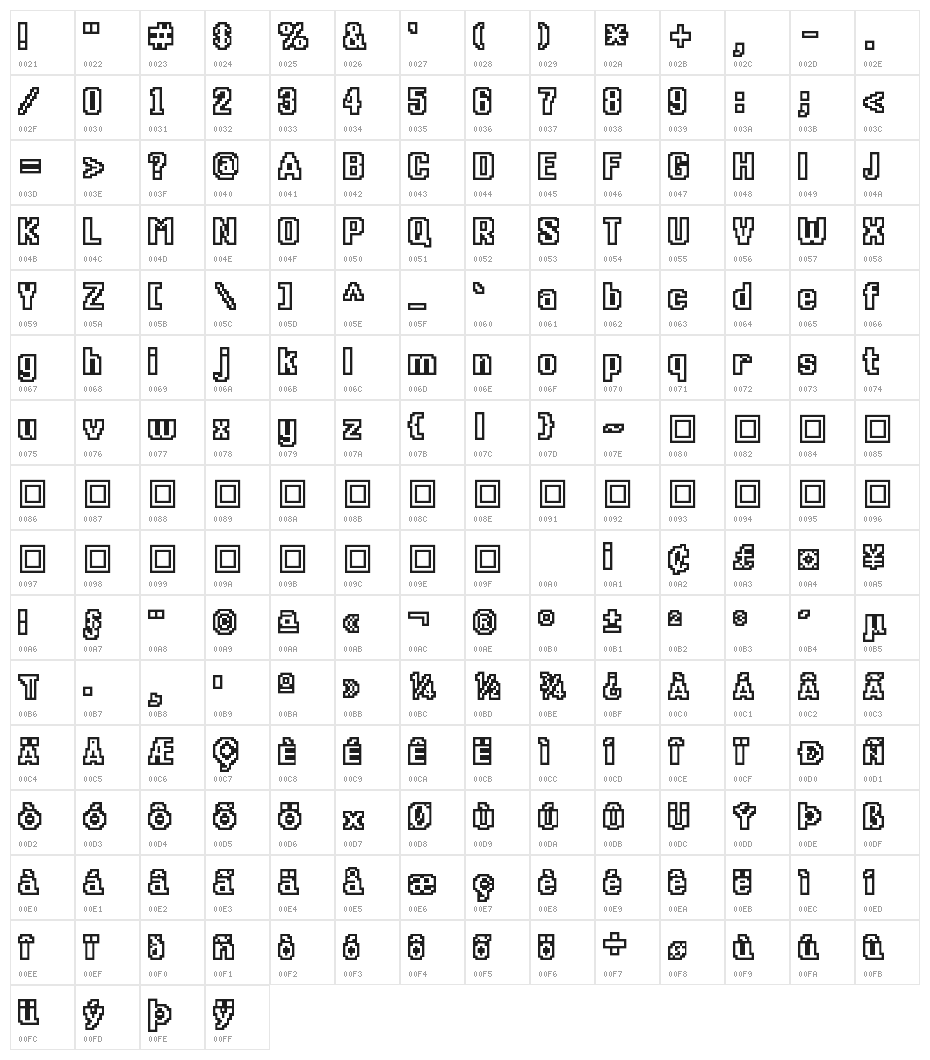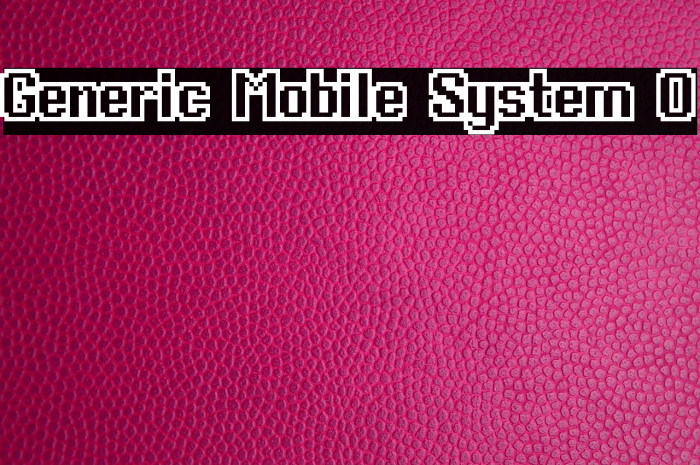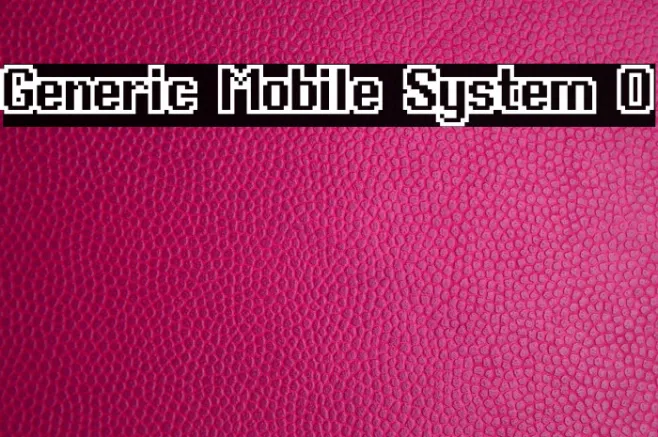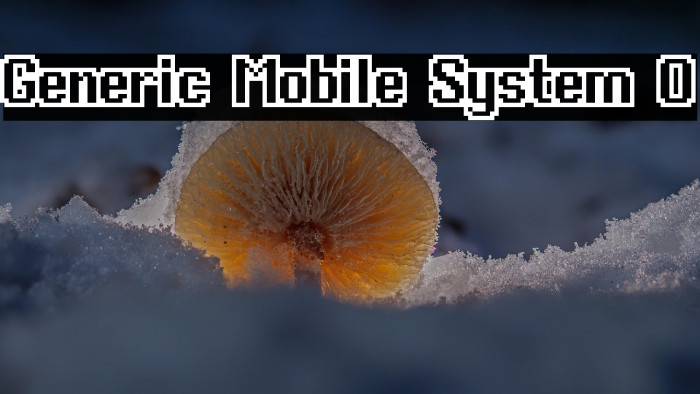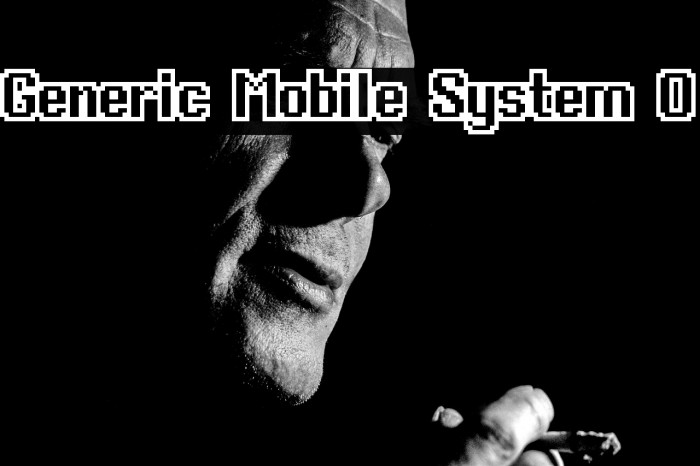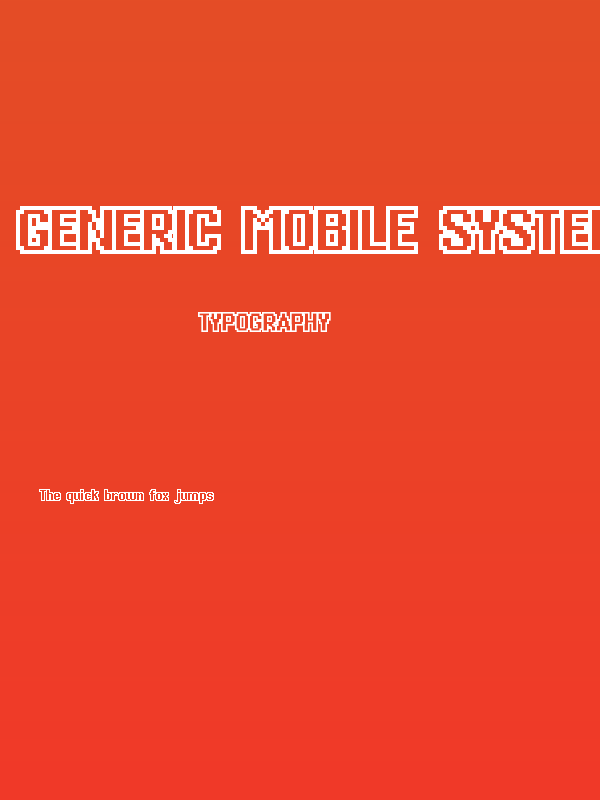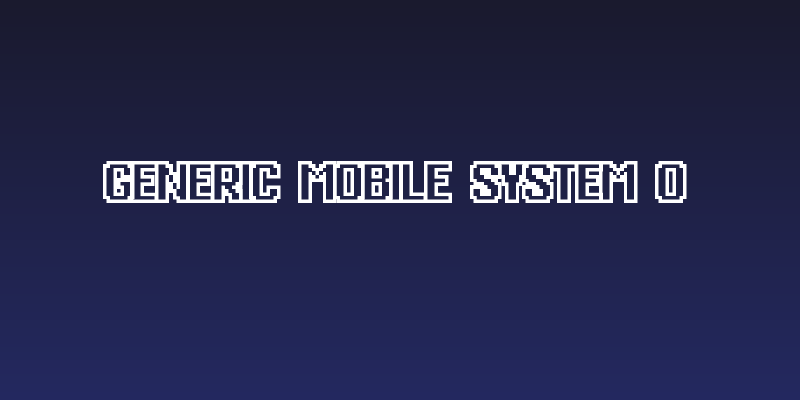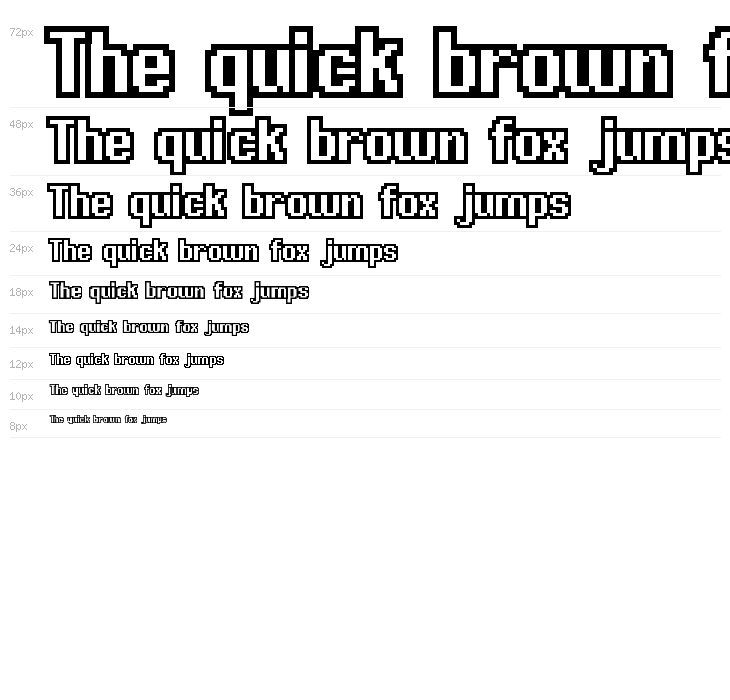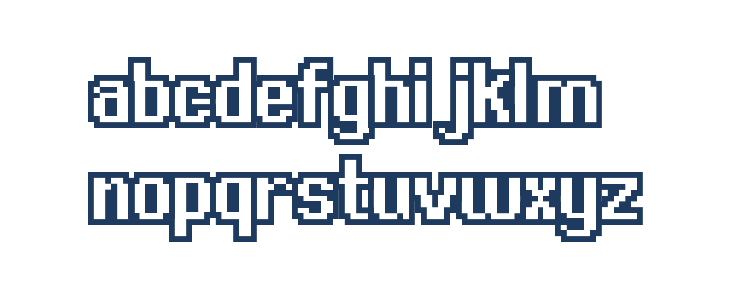
Generic Mobile System O Font
Generic Mobile System O Description
This font features a bold, blocky design with a pixelated aesthetic reminiscent of early digital displays. Each character is outlined with a thick border, giving it a distinct, retro appearance. The uppercase and lowercase letters maintain a consistent height, contributing to a uniform look. The numbers and special characters follow the same style, ensuring cohesion across all elements. The font's geometric structure and sharp edges make it ideal for projects that aim to evoke a sense of nostalgia or digital themes.
| Proposed Projects | Ideal for video game design, retro-themed posters, digital art projects, and tech-related branding. |